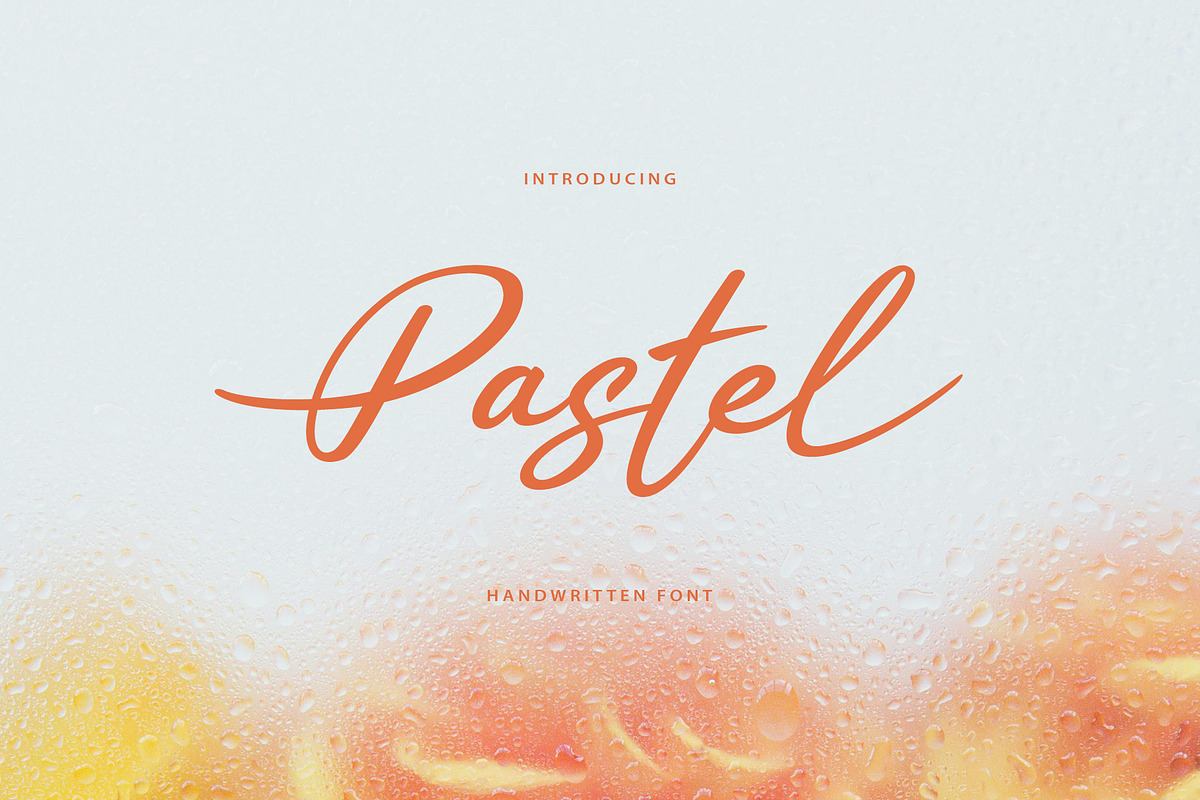
The Pastel Handwritten Font Free Download is a charming, delicate script typeface that brings a soft, handwritten feel to any design. Perfect for invitations, branding, and personal projects, this font adds a friendly and artistic touch. Please note, for commercial use, a license must be purchased. You can download it for free for testing purposes.
With its smooth, flowing strokes, the Pastel Handwritten Font Free Download captures the beauty of real handwriting, making it ideal for designs that require a personal, yet sophisticated style. Whether you're working on logos, greeting cards, or social media posts, this font will give your project a creative and warm vibe.